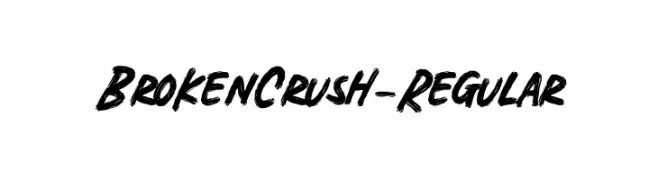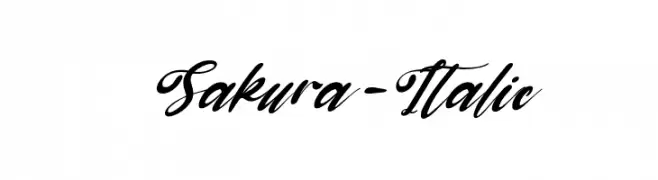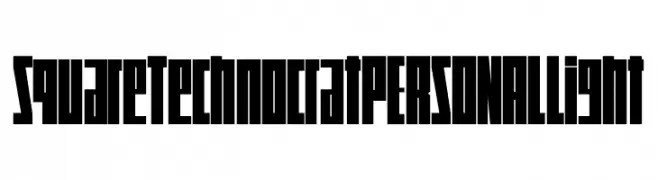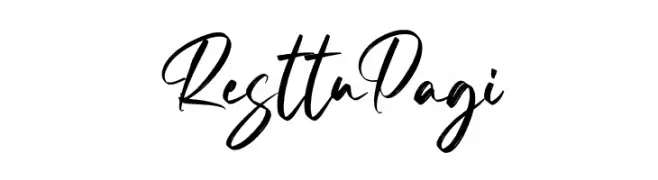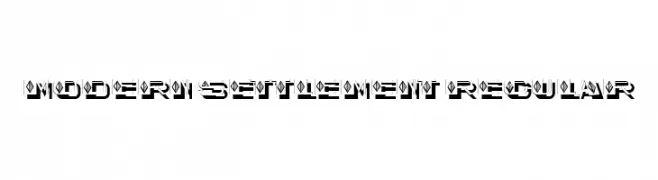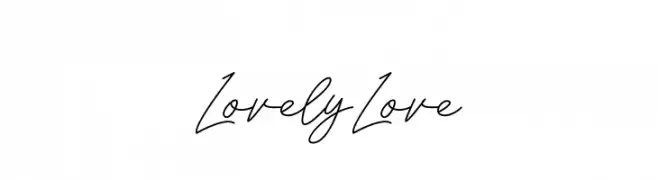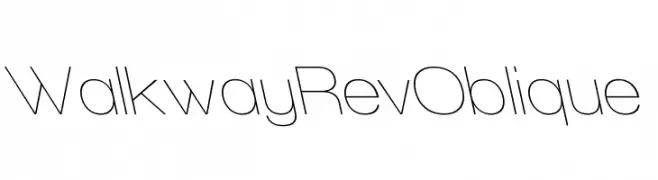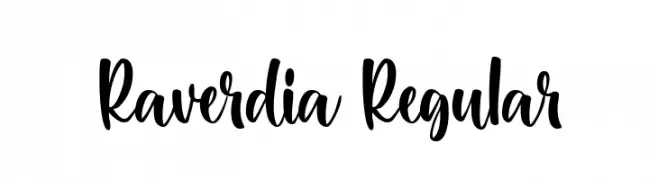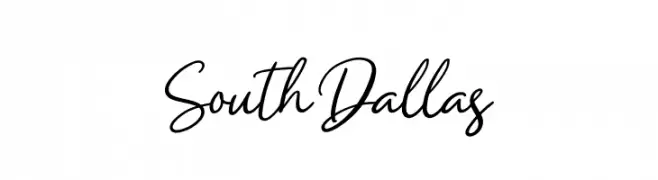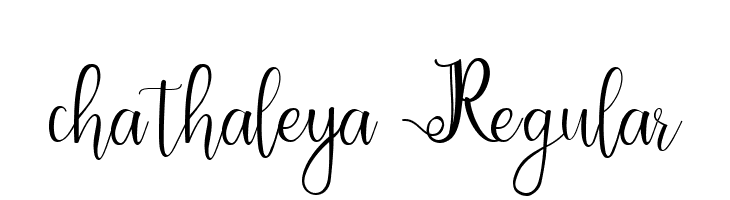
A bold, energetic brush script font with a hand-painted appearance.
A flowing, cursive font with elegant, sweeping strokes and ornate flourishes.
A bold, geometric font with a modern, futuristic style.
Expressive, brush-style handwritten script with energetic strokes.
A bold, geometric font with sharp angles and a modern aesthetic.
An elegant, cursive handwritten font with a romantic and sophisticated style.
A modern, oblique font with thin, elongated characters and a sleek, minimalist style.
An elegant, flowing script font with intricate, continuous strokes.
A bold, expressive script font with fluid, interconnected strokes.
A cursive, handwritten-style font with elegant, flowing characters.